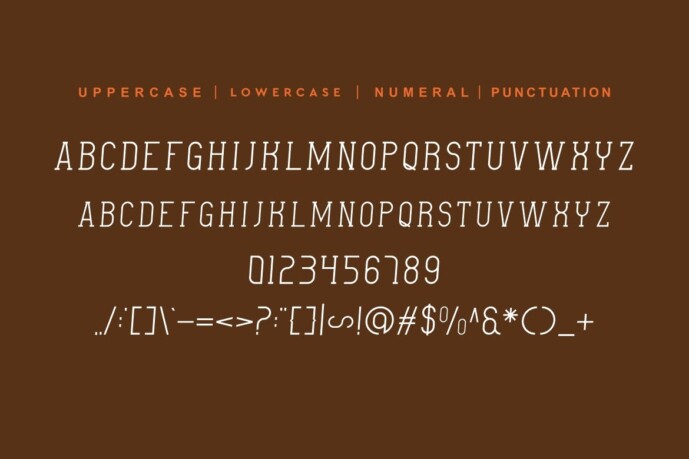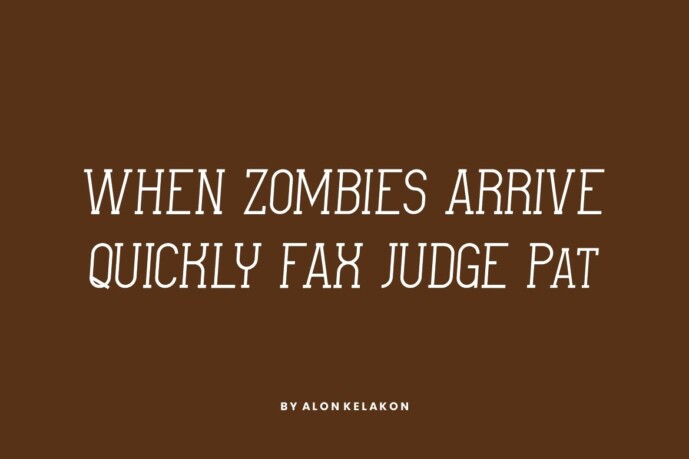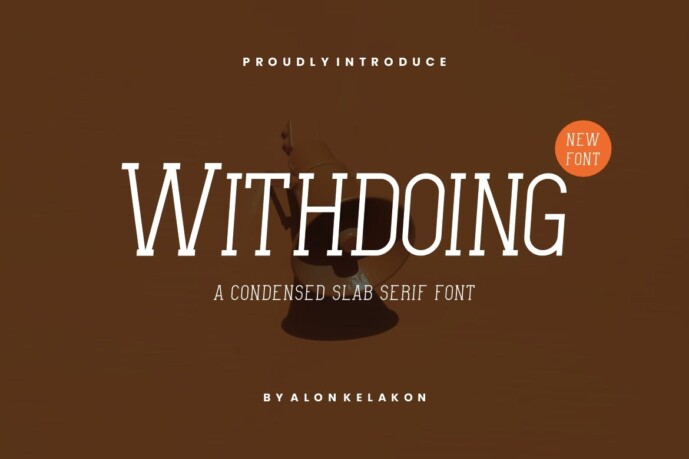
Withdoing Font
Withdoing Font – Slab Serif font is unique. Ready to use for your designs, such as labeling, movie scene, poster, movie title, concerts, album covers, logos and much more